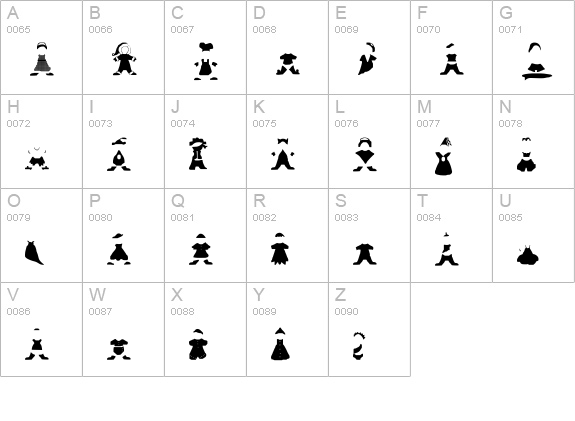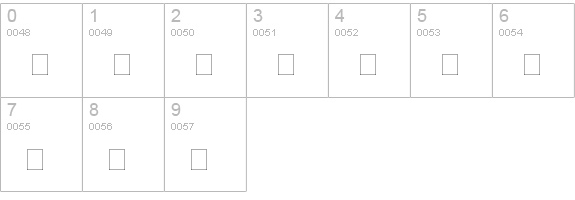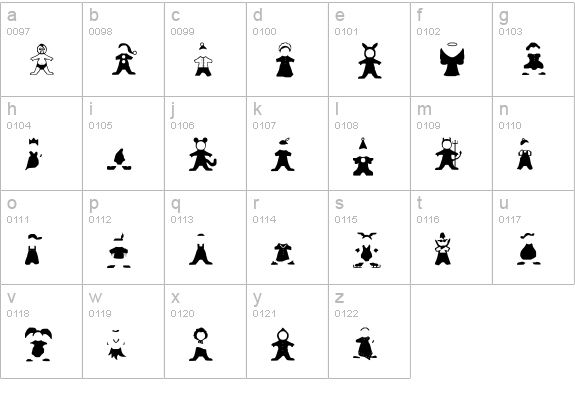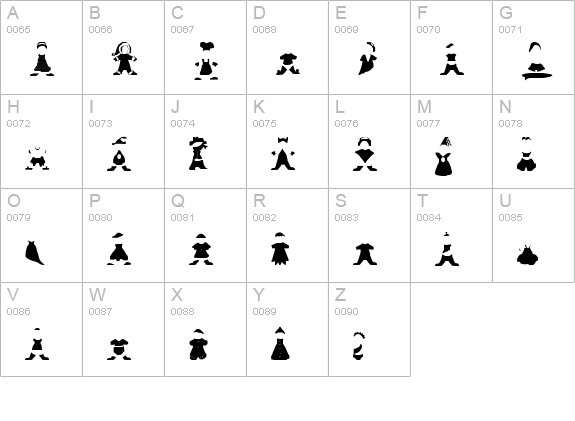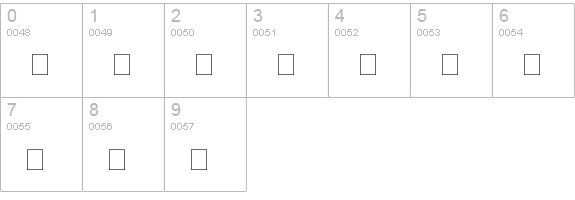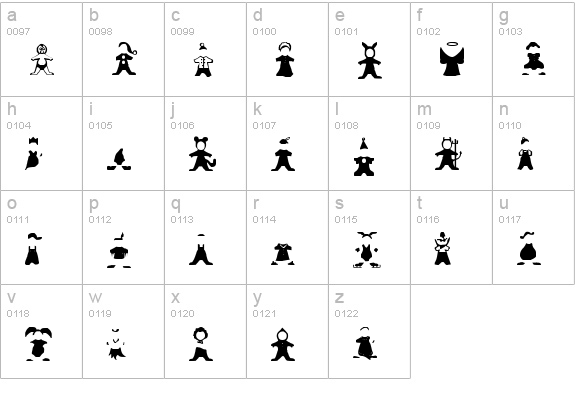
sbnetbaby Font Details
Introducing the captivating and versatile SBNetBaby font – a true gem in the world of typography. This remarkable font embodies a perfect balance of elegance and playfulness, making it the ideal choice for a wide range of creative projects. With its unique and eye-catching design, SBNetBaby font instantly captures attention and adds a touch of sophistication to any design. Its fluid lines and graceful curves create a sense of movement and energy, while its rounded edges give it a friendly and approachable appeal. But what truly sets SBNetBaby font apart is its accessibility. It is freely available to download at FontsMarket.com, allowing designers and enthusiasts alike to unleash their creativity without any constraints. This font empowers individuals to express their ideas and stand out from the crowd, all at no cost. Whether you're working on branding, packaging, advertising, or any other design project, SBNetBaby font is the perfect choice to make a lasting impression. Its versatility ensures that it will seamlessly integrate into any design concept, while its unique character gives it a distinctive edge. So why wait? Download SBNetBaby font today from FontsMarket.com and let your creative journey begin. Embrace the freedom to experiment, innovate, and express yourself with this extraordinary font that is sure to elevate your designs to new heights.